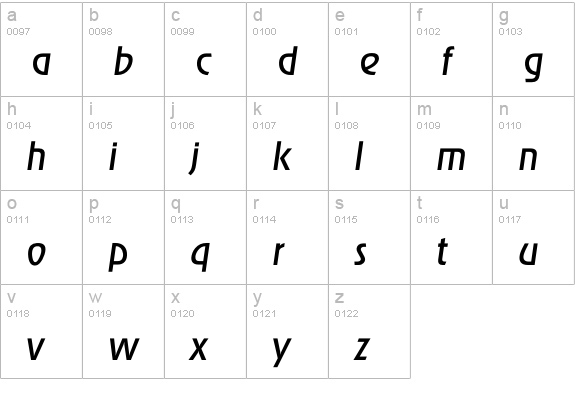
Iragtime Regular is the standard, neutral variant in the Iragtime typeface family \xE2\x80\x94 well suited to general body text, paragraphs, and standard typographic work.
Introducing Iragtime Regular, a stunning font that effortlessly combines elegance and charm. This font is perfect for adding a touch of sophistication to any design project, from invitations and wedding stationary to branding and packaging. With its clean lines and classic letterforms, Iragtime Regular is a true testament to timeless design. Its versatility allows it to be used in various contexts, making it suitable for both headlines and body text. The carefully crafted curves and precise detailing create a sense of balance and harmony, ensuring that your text stands out and captivates the reader. One of the most remarkable aspects of Iragtime Regular is that it is available for free download at FontsMarket.com. This means that you can easily access this exquisite font and incorporate it into your creative endeavors without any cost. Whether you are a professional designer or a passionate DIY enthusiast, this font provides you with a high-quality tool to elevate your projects to new heights. So why wait? Embrace the beauty and versatility of Iragtime Regular today by downloading it for free at FontsMarket.com. Enhance your designs with this elegant font and witness the transformative power it brings to your work. Let Iragtime Regular be the missing piece that completes your artistic vision and leaves a lasting impression on your audience.